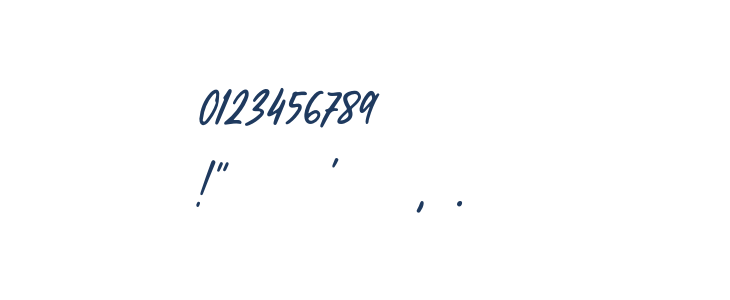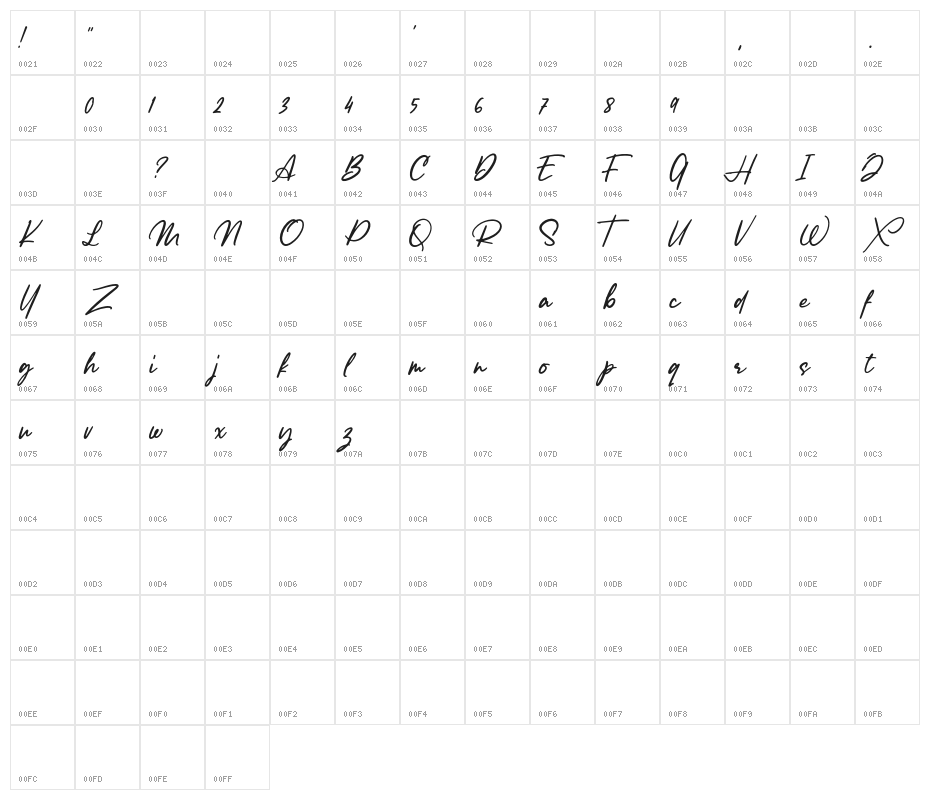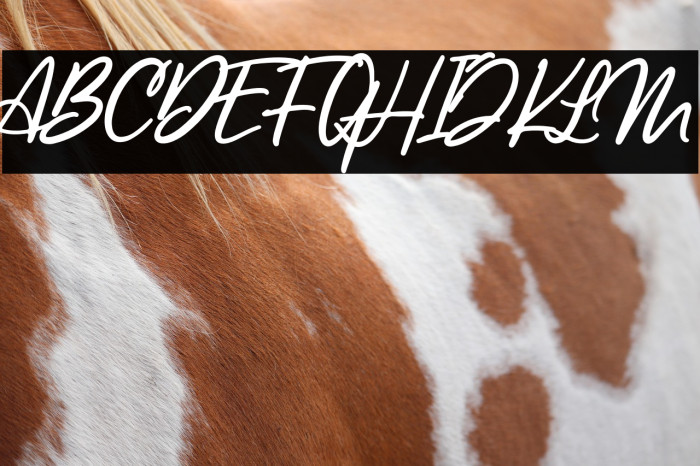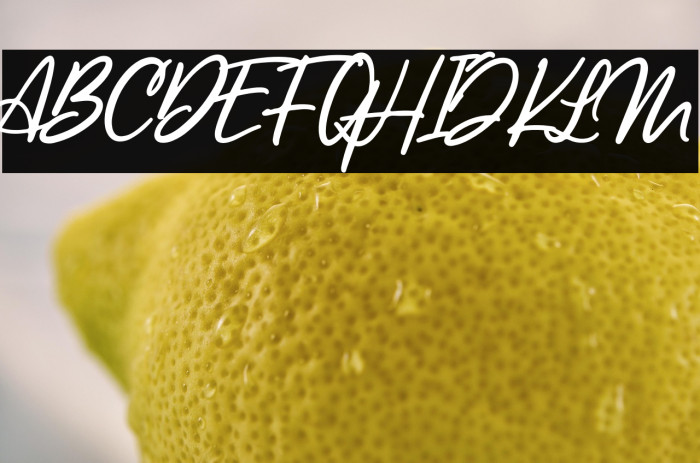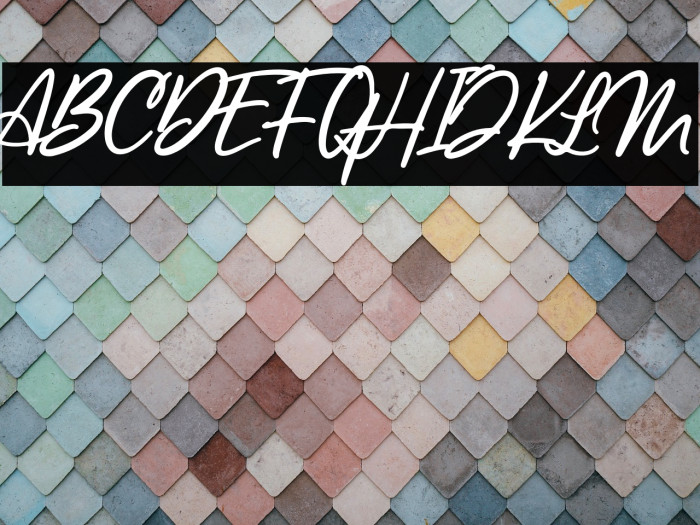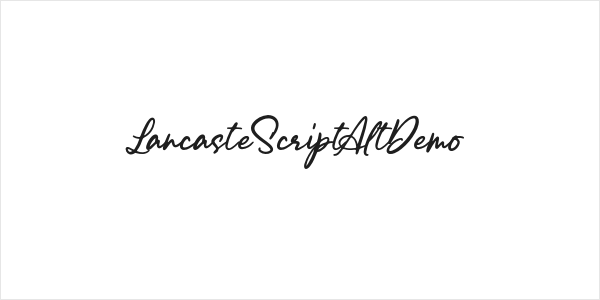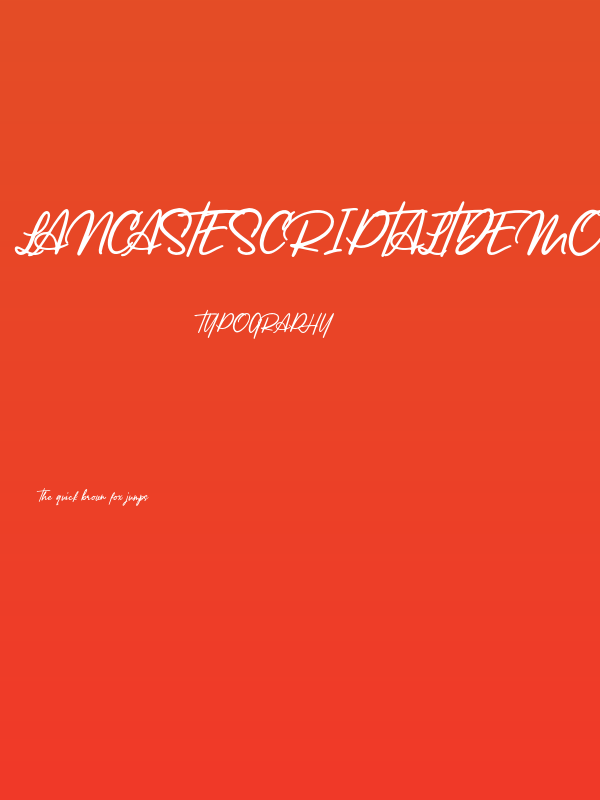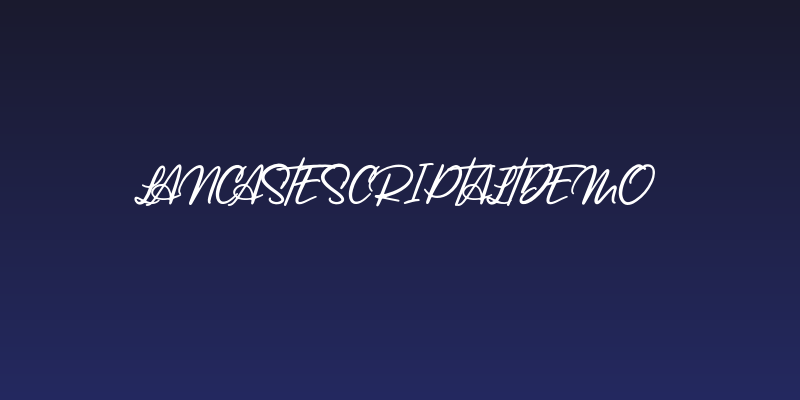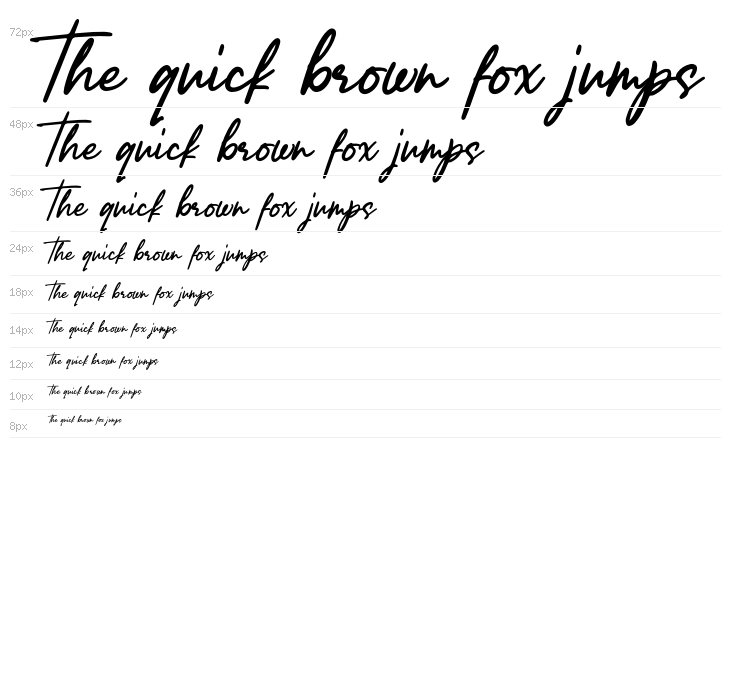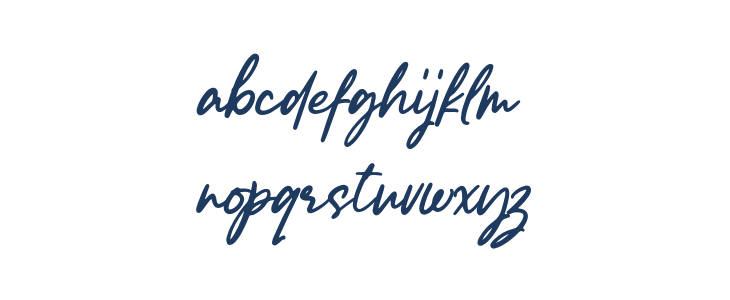
LancasteScriptAltDemo Font
LancasteScriptAltDemo Description
This font exudes a lively and dynamic handwritten style, characterized by its fluid and cursive letterforms. The strokes are smooth and connected, giving it an elegant and personal touch. The uppercase letters are bold and prominent, while the lowercase letters maintain a consistent flow, enhancing readability. The numerals and special characters are crafted with the same attention to detail, ensuring a cohesive appearance across all characters. This font is ideal for projects that require a personal or artistic flair, such as invitations, greeting cards, or branding materials.
| Use Case | Logos, Headlines, Artistic projects |
| Proposed Projects | Ideal for invitations, greeting cards, branding, and artistic projects. |